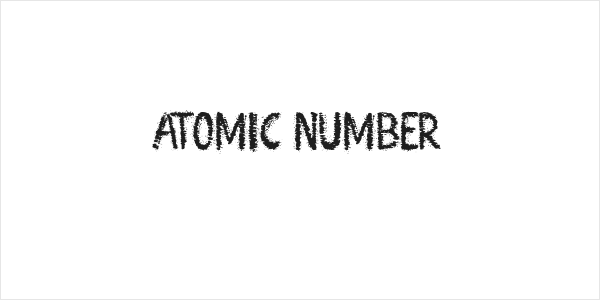
Atomic Number Font
| Gesamtstil | Urban, Grunge, Edgy |
| Anwendungsfall | Headlines, Posters, Branding |
| Vorgeschlagene Projekte | Ideal for posters, album covers, streetwear branding, and urban-themed designs. |